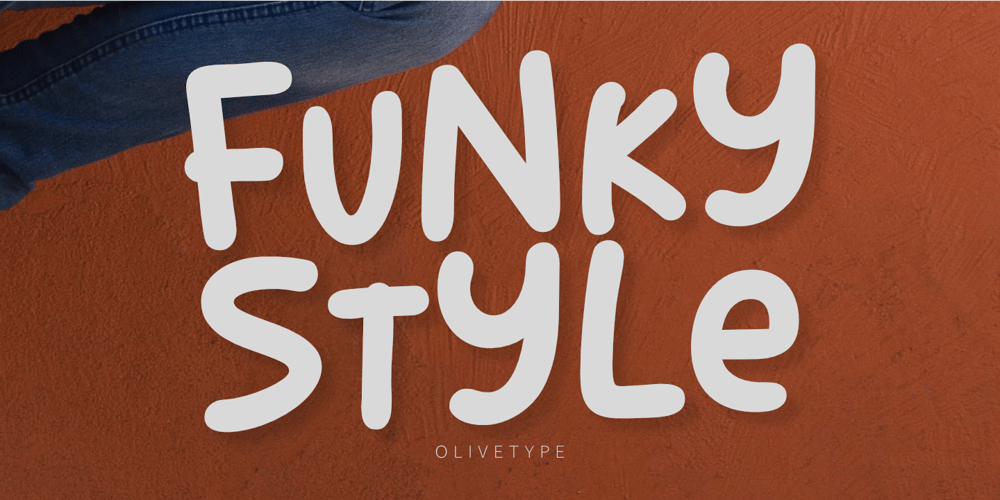
Funky Style Font Family was designed by Nurul Hidayani and published by Olivetype. Funky Style contains 1 styles and family package options. Get ready to add a whole new level of funkiness to your designs with Funky Style – a bold and fun display font that is here to make a statement. With its eye-catching and vibrant personality, this font is perfect for those looking to inject some life into their logos, posters, or any other creative project. Whether you’re creating brand identities or simply want to jazz up your social media posts, Funky Style has got you covered with its versatility and ability to convey messages in an exciting way. Embrace the spirit of fun and unleash your creativity like never before with Funky Style!Funky Style Font includes : Standard Latin Uppercase & Lowercase Numbers, symbols, and punctuations Multilingual Support. Fully accessible without additional design software Simple Installations Works on PC & Mac Thank You.